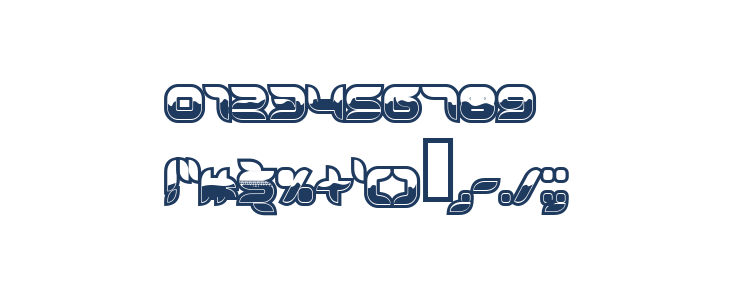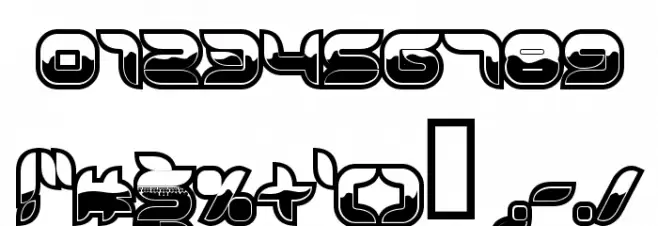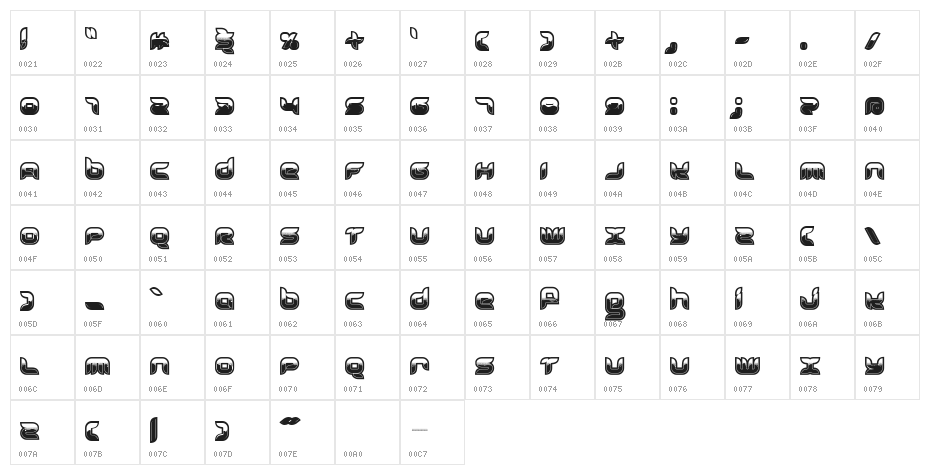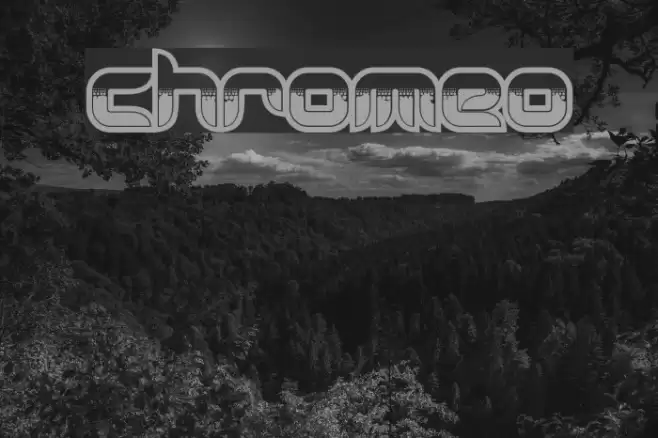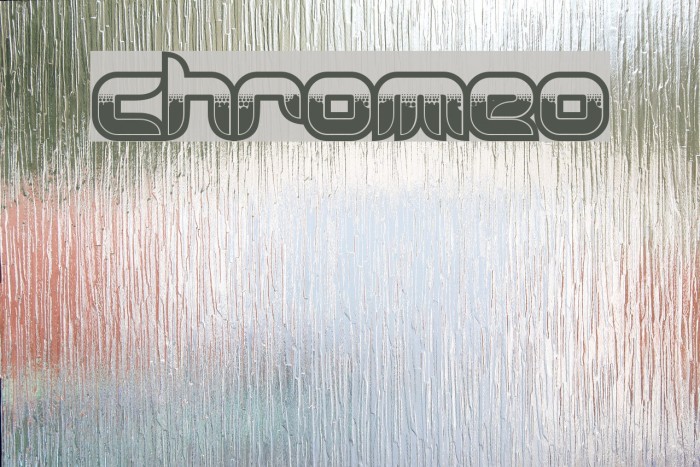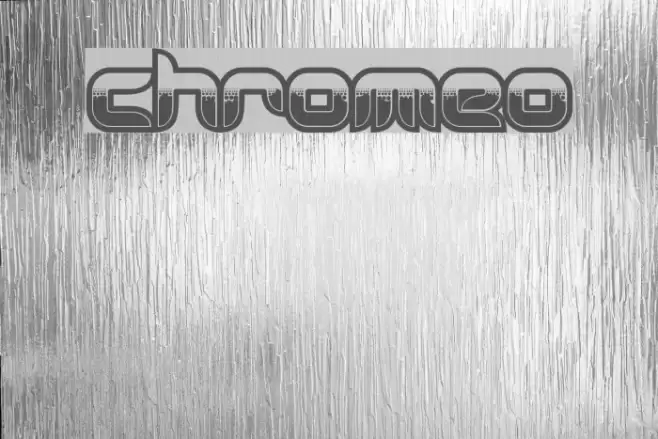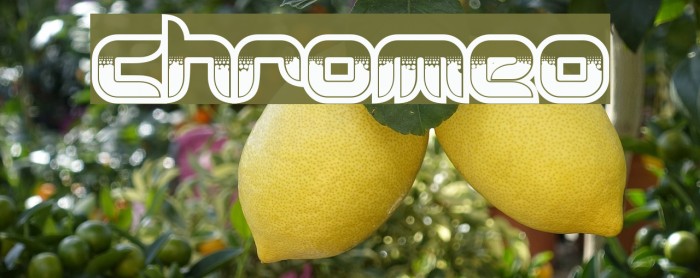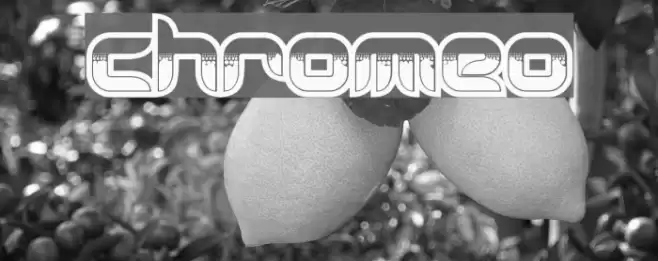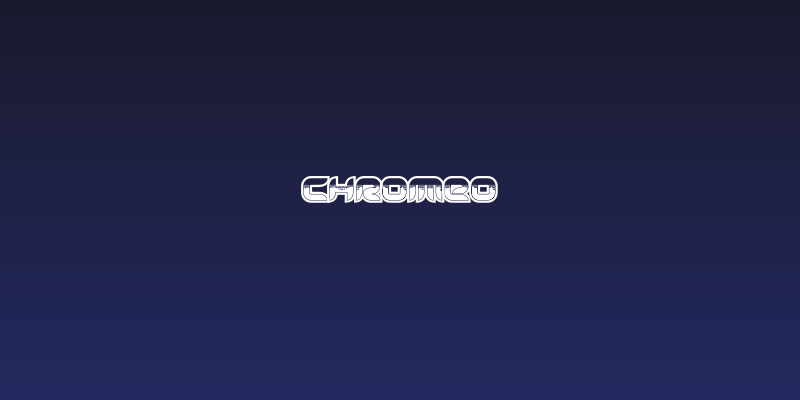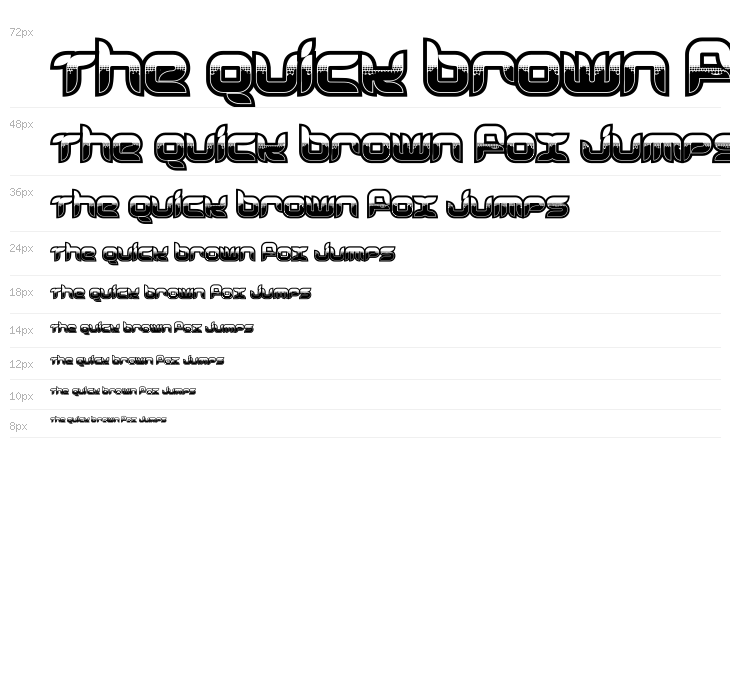
Chromeo Font
Chromeo Description
This font features a bold, futuristic design with a distinct three-dimensional effect. The characters are outlined with a thick border, and the interior is filled with a dotted pattern, creating a sense of depth and texture. The style is highly geometric, with rounded edges and a consistent width throughout each character. The uppercase and lowercase letters maintain a uniform appearance, while the numbers and special characters follow the same design principles, ensuring a cohesive look. This font is eye-catching and ideal for projects that require a modern and dynamic aesthetic.
| Proposed Projects | Ideal for sci-fi themed designs, video game graphics, tech branding, and modern posters. |